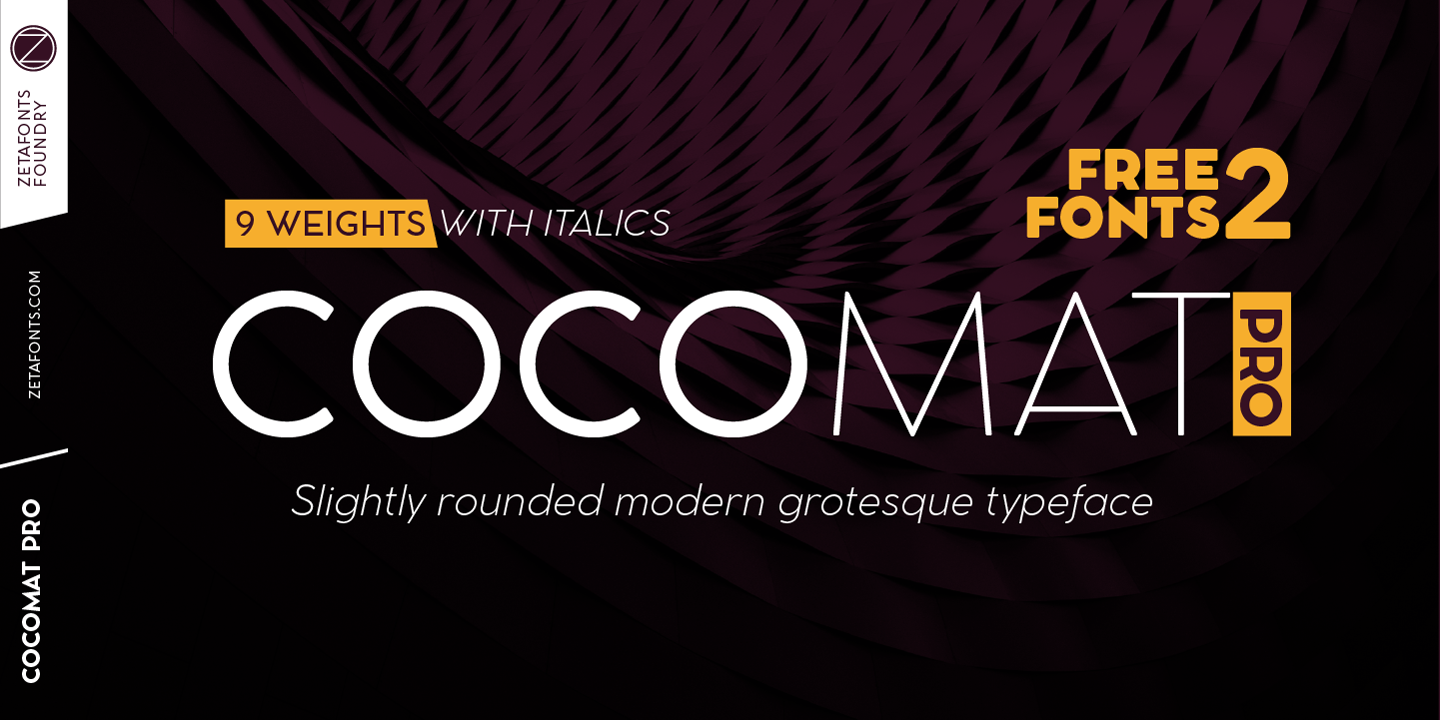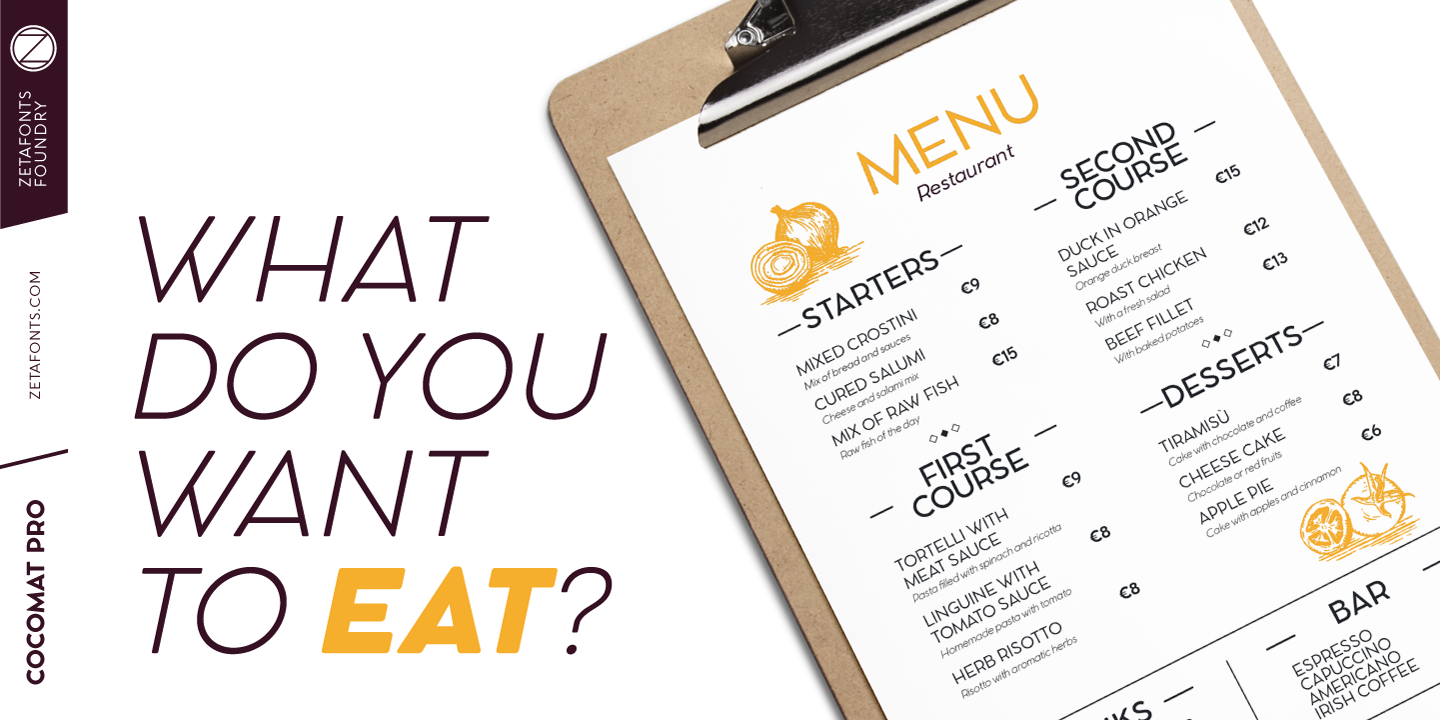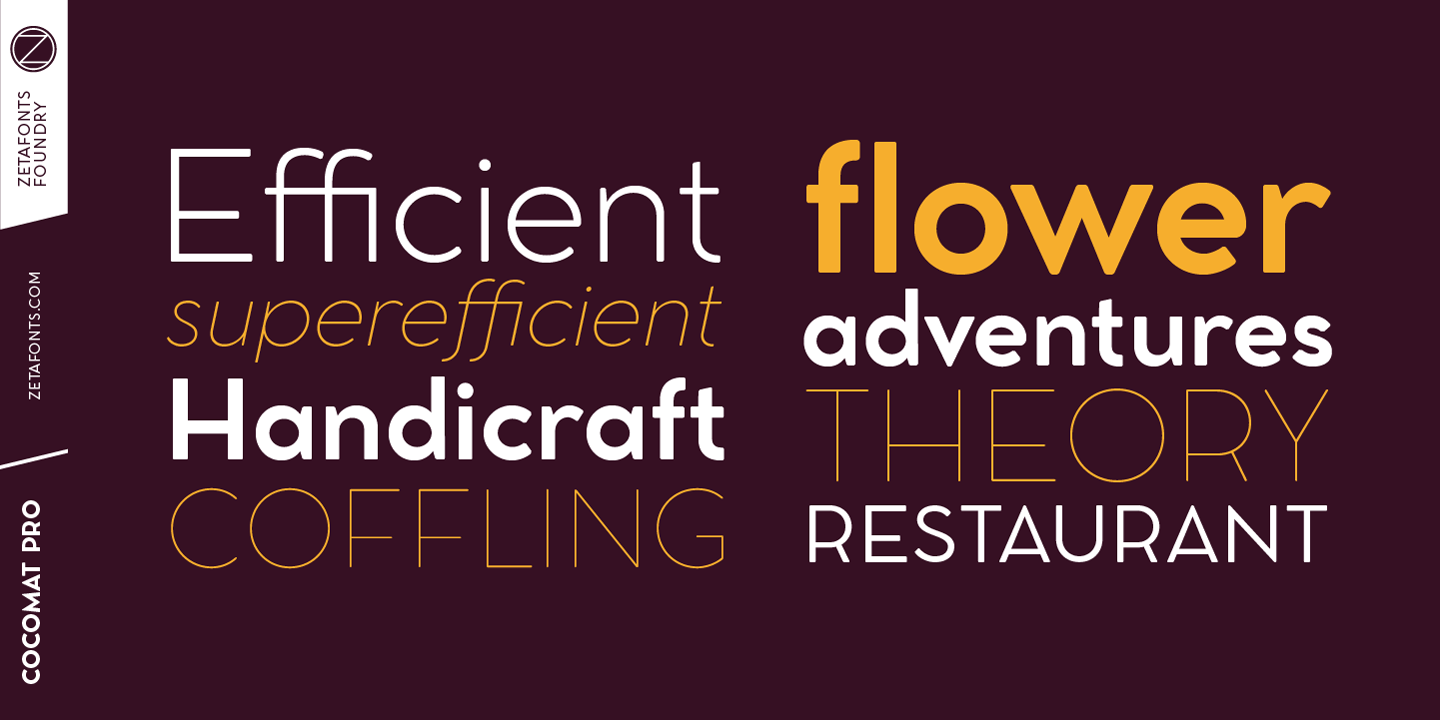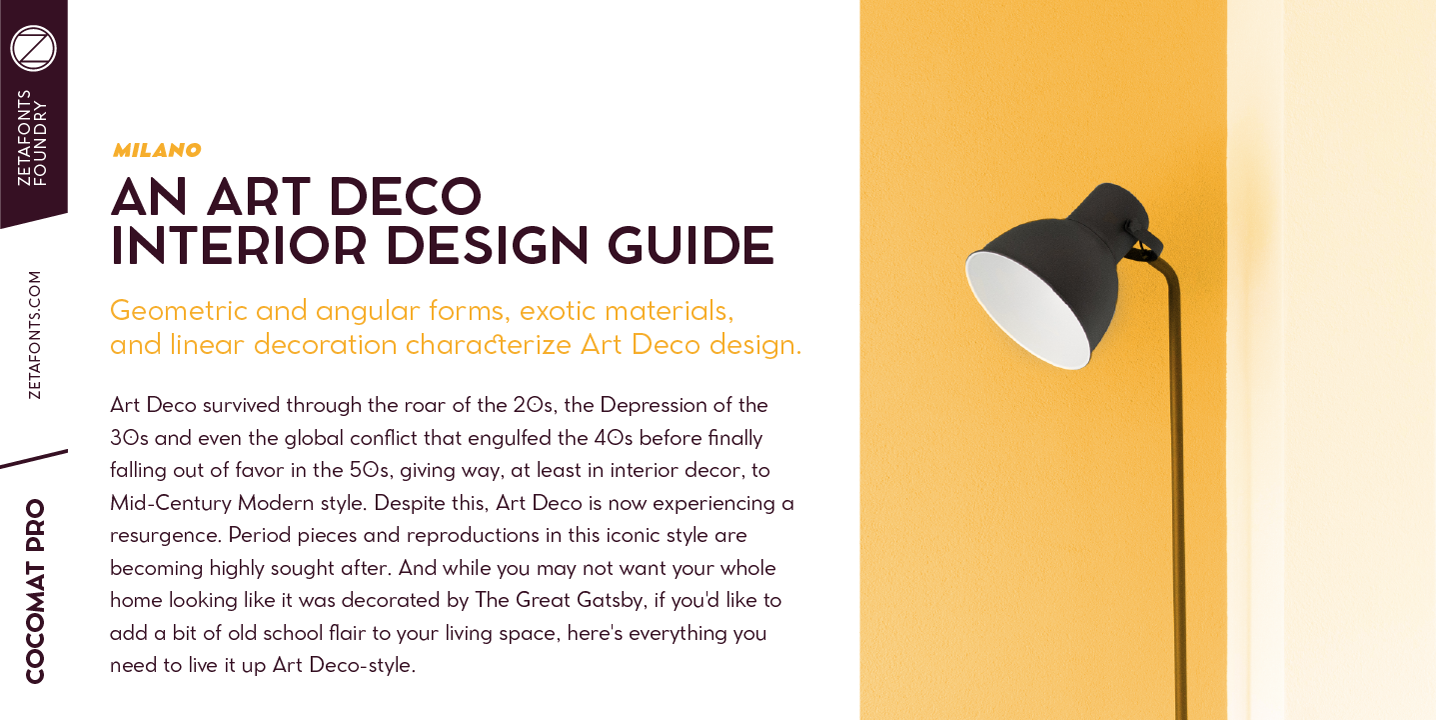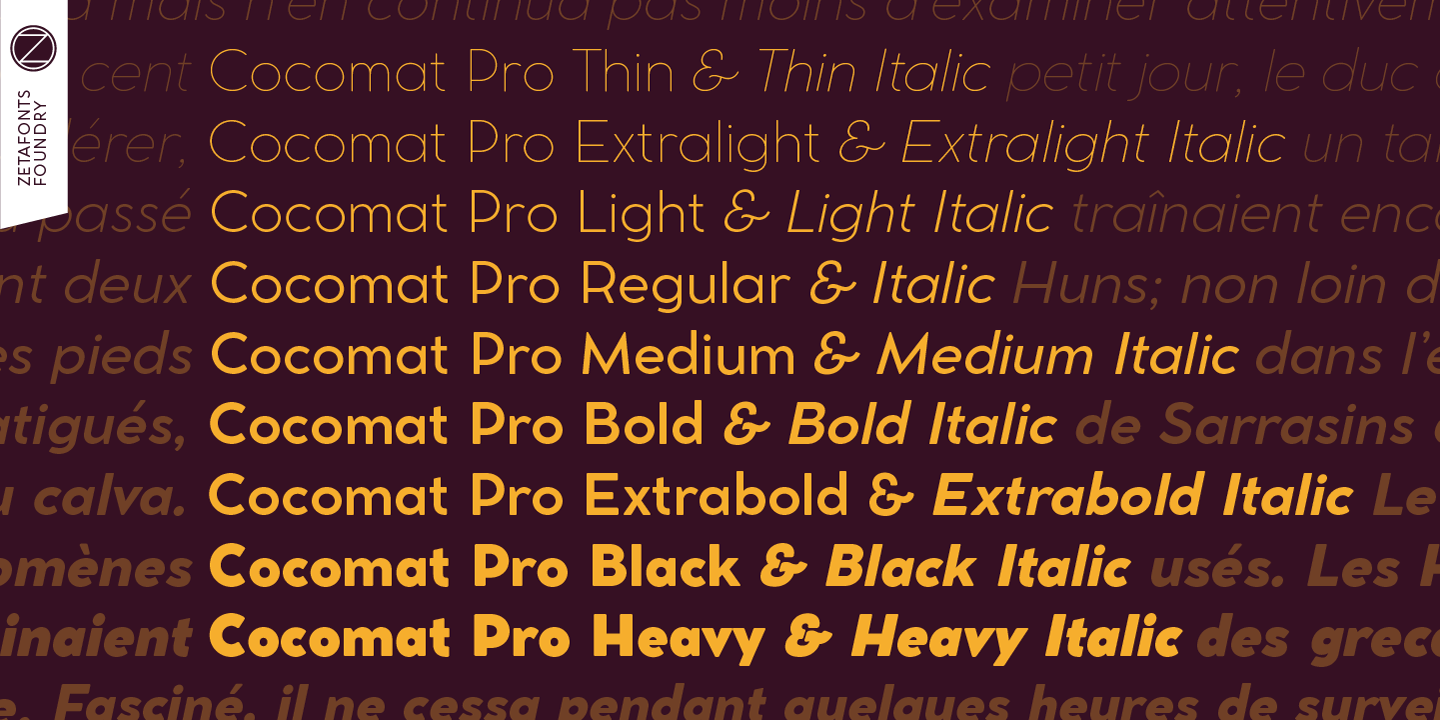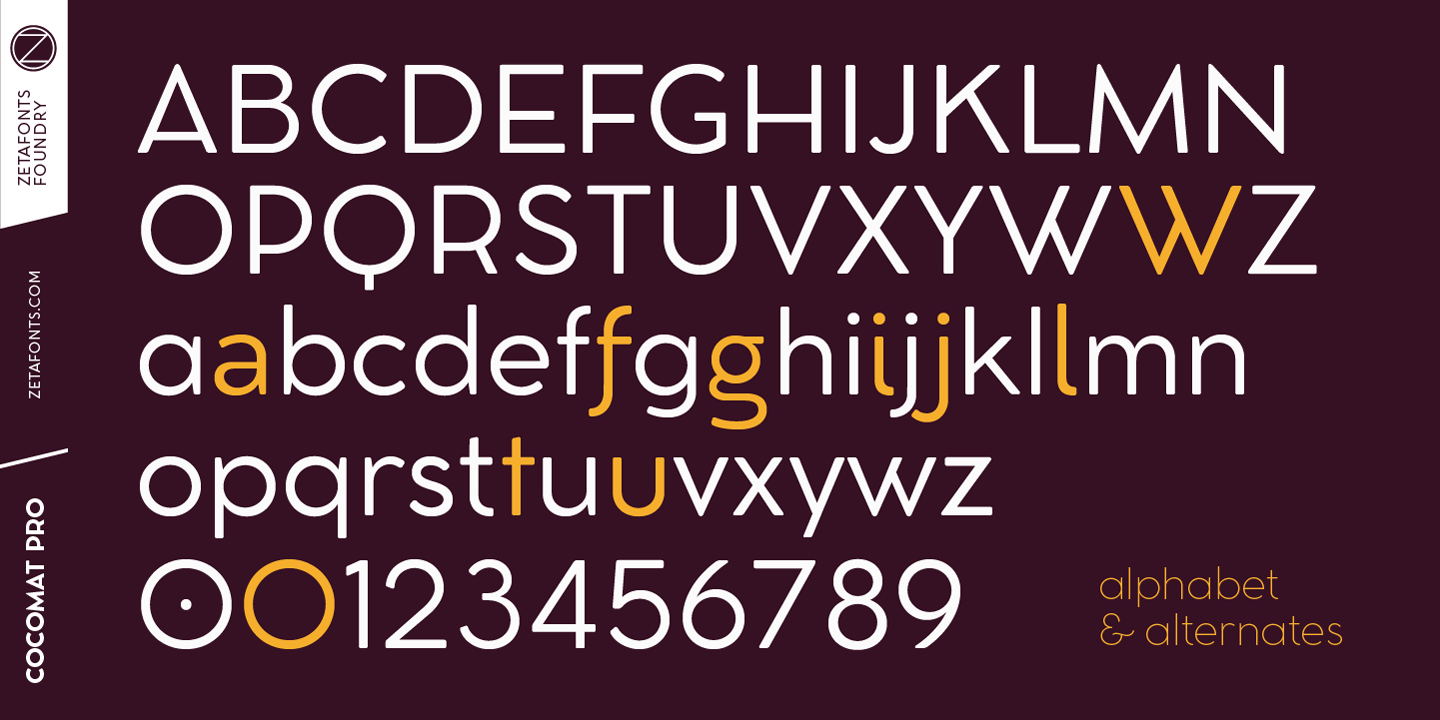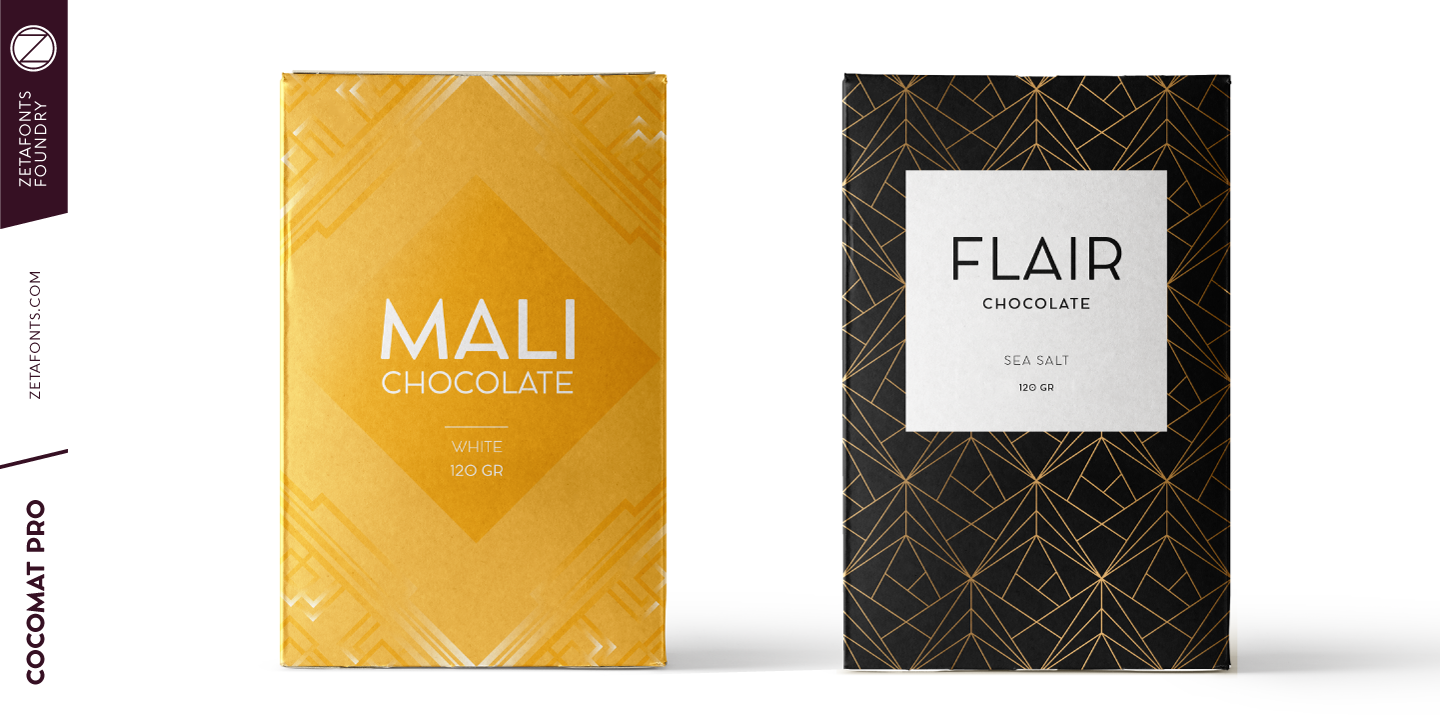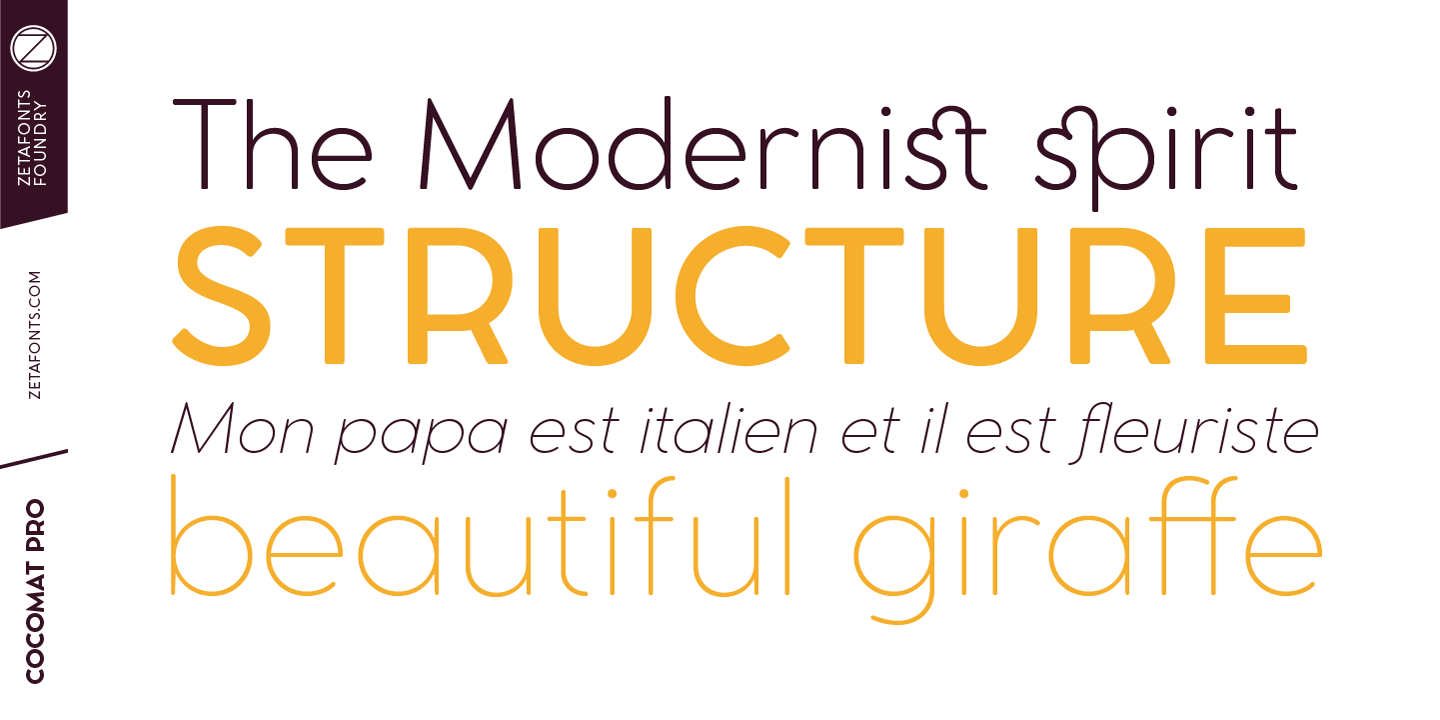
About the Cocomat Pro Font
About Cocomat Pro Font Family Cocomat has been designed by Francesco Canovaro and Debora Manetti as a development of the Coco Gothic typeface system created by Cosimo Lorenzo Pancini, It shares with all the other subfamilies in the Coco Gothic system a geometric skeleton with open, more humanistic proportions, a sans serif design with slightly rounded corners and low contrast proportions, without optical compensation on the horizontal lines, resulting in a quasi-inverted contrast look in the boldest weights
What differentiates Cocomat from the other subfamilies in Coco Gothic are some slight design touches in the uppercase letters, with a vertical unbalancing reminiscent of art deco design, notably evident in uppercase “E”, “A”,”F”,”P” and “R” – while lowercase letters have been given some optical compensation on the stems, like in “n”,”m”, “p” and “q”
These design choices, evoking the second and third decade of the last century (Cocomat is also referred as Coco 1920 in the Coco Gothic Family) all give Cocomat a slight vintage feeling, making it a perfect choice every time you need to add a period vibe or an historical flair to your design, like in food or luxury branding
The typeface, first published in 2014, has been completely redesigned by the original authors in 2019 as Cocomat PRO to include eight extra weights (thin, medium, black and heavy in both roman and italic form), extra open type features (including alternate forms, positional numerals), and extra glyphs making Cocomat cover over two hundred languages using latin, cyrillic and greek alphabets